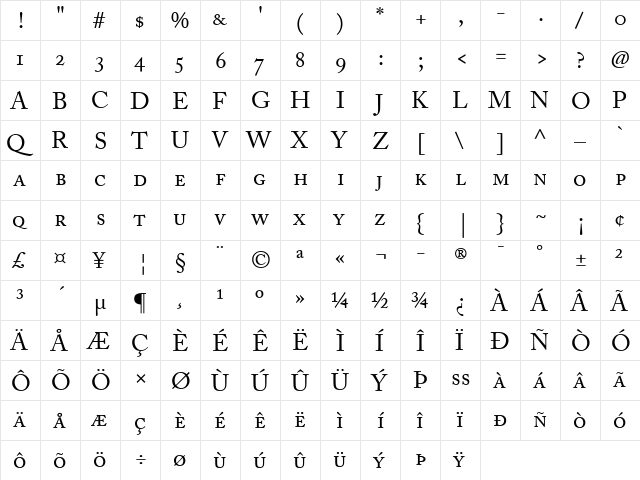
ACaslon RegularSC Regular
Design Context for ACaslon RegularSC Typeface
ACaslon RegularSC is a composed and adaptable typeface that performs quietly and consistently across a wide range of design contexts.